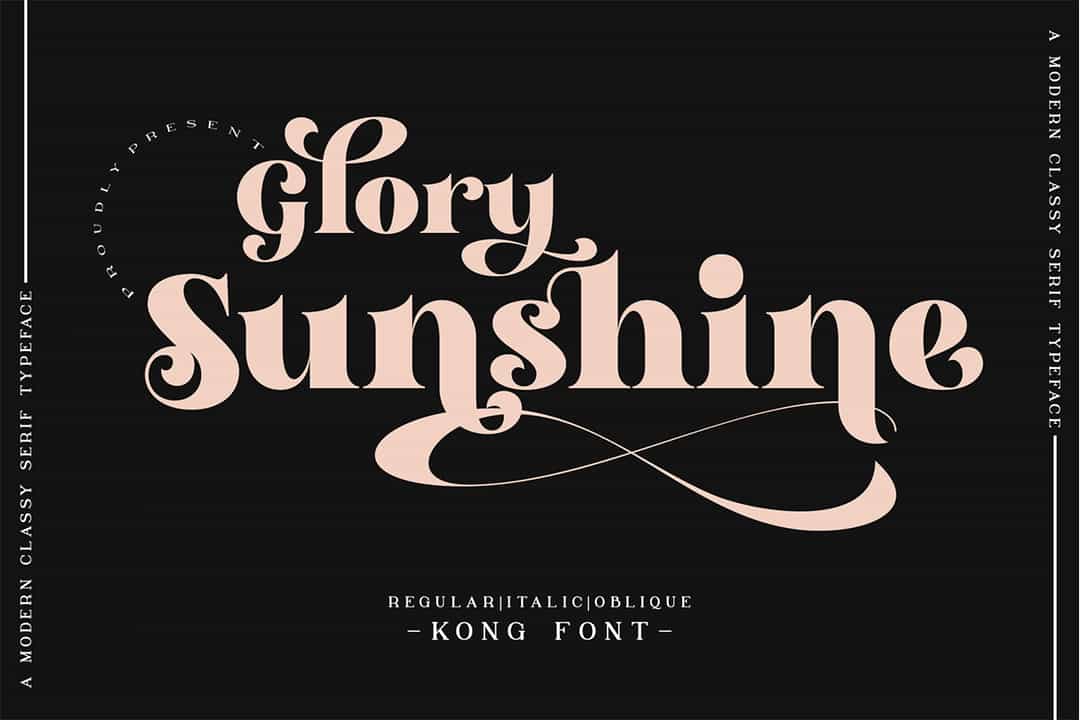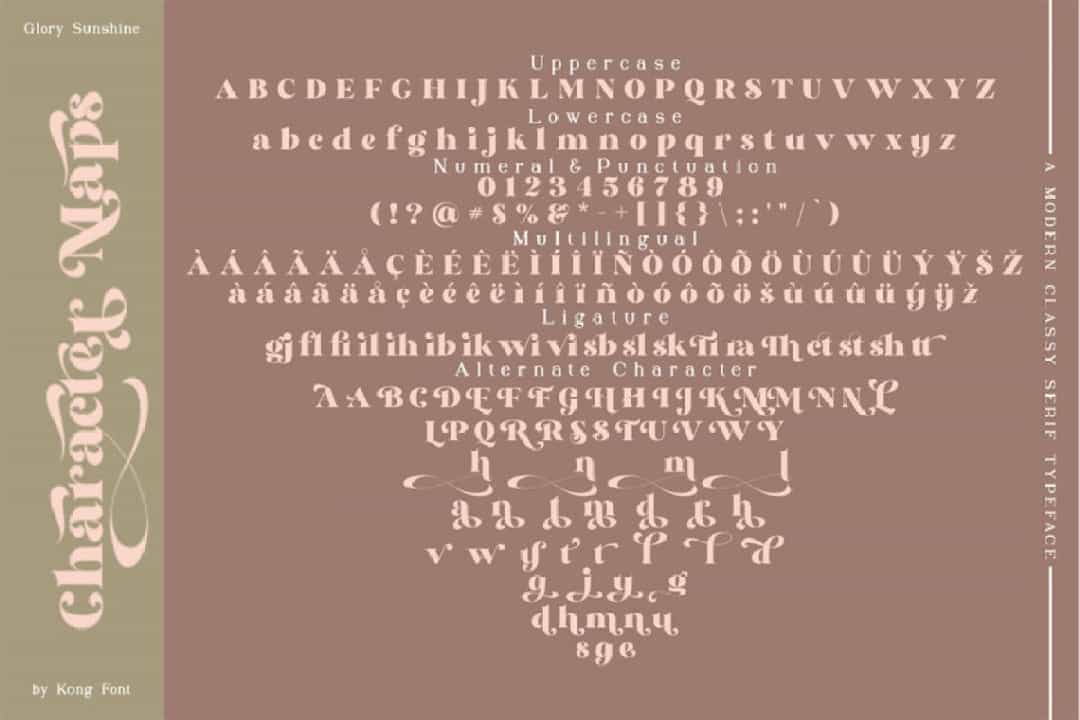
Glory Sunshine Serif Font Family is ideal for creating cute invitations to birthday parties, weddings and any special events. A set of numbers and letters make Glory Sunshine Serif Font Family ideal for use in projects such as logotype, brand design, digital lettering arts (T-Shirt/Apparel), posters (Posters /Magazine), signs (Signs), advertising design or any other project which requires branding.